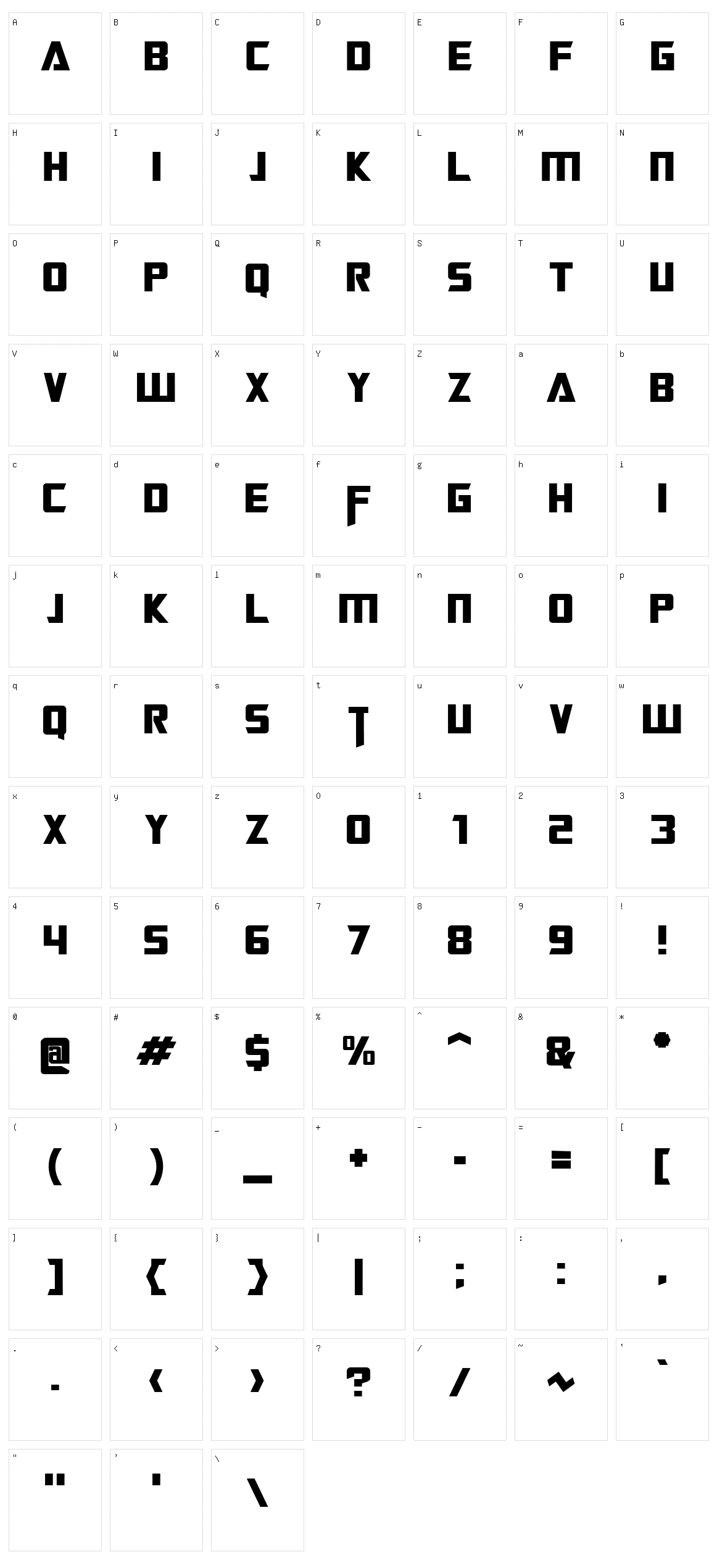
Transformers Movie
Designed by: Alphabet&Type®
x TRANSFORMERS MOVIE FONT x
x from film direct by Michael Bay x x
Font name: TRANSFORMERS movie - Latin Decorative font (versione 1.0)
Type designer: P. A. Vannucci (Font Lab Studio 5.0)
Dall' eterno conflitto tra gli Autobots e Decepticons,nuove forze aliene contrastano la Terra.
Il font originale del film.
From eternal conflict between Autobots and Decepticons, new aliens force opposed the Earth.
The original font of the film.